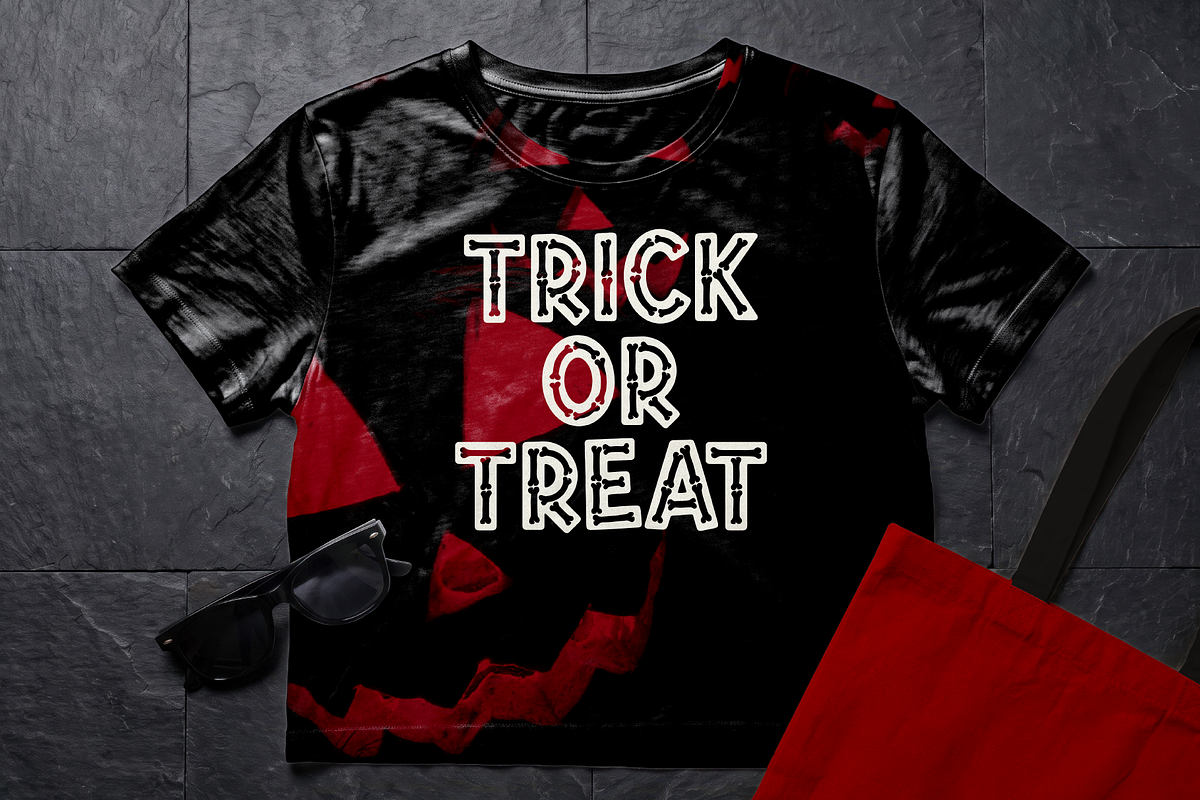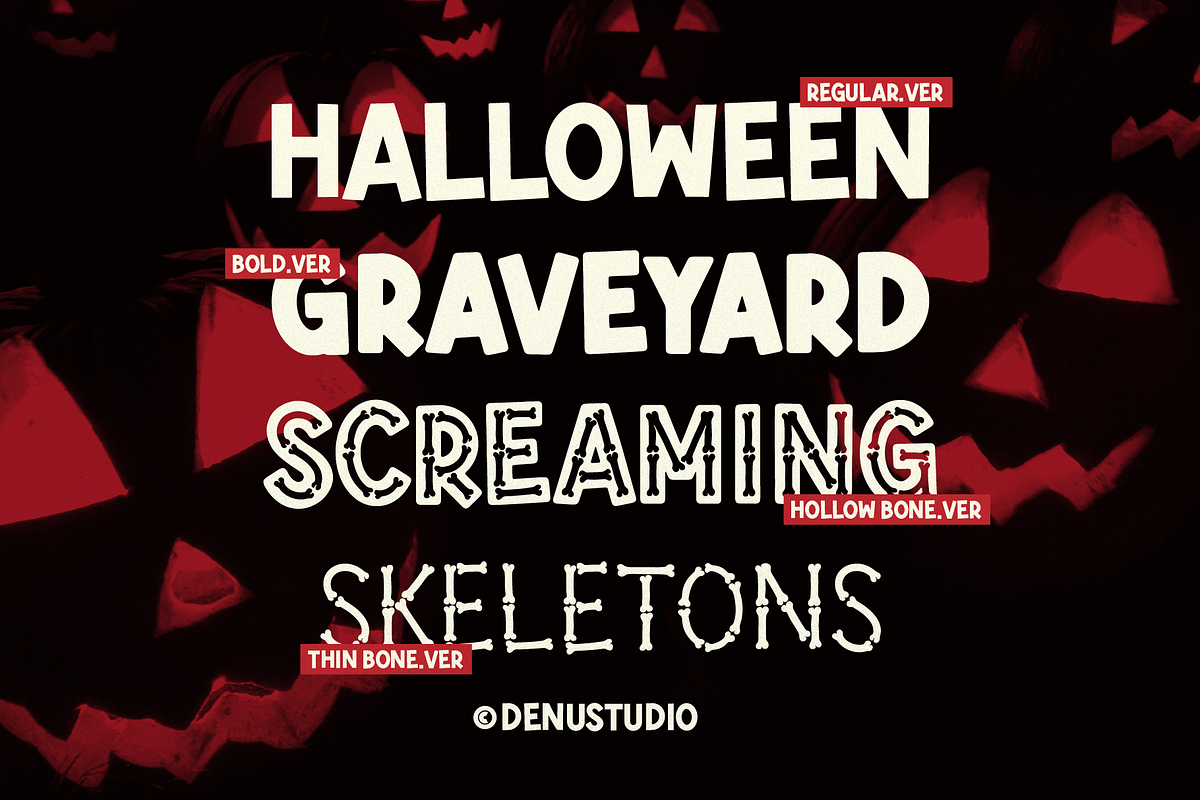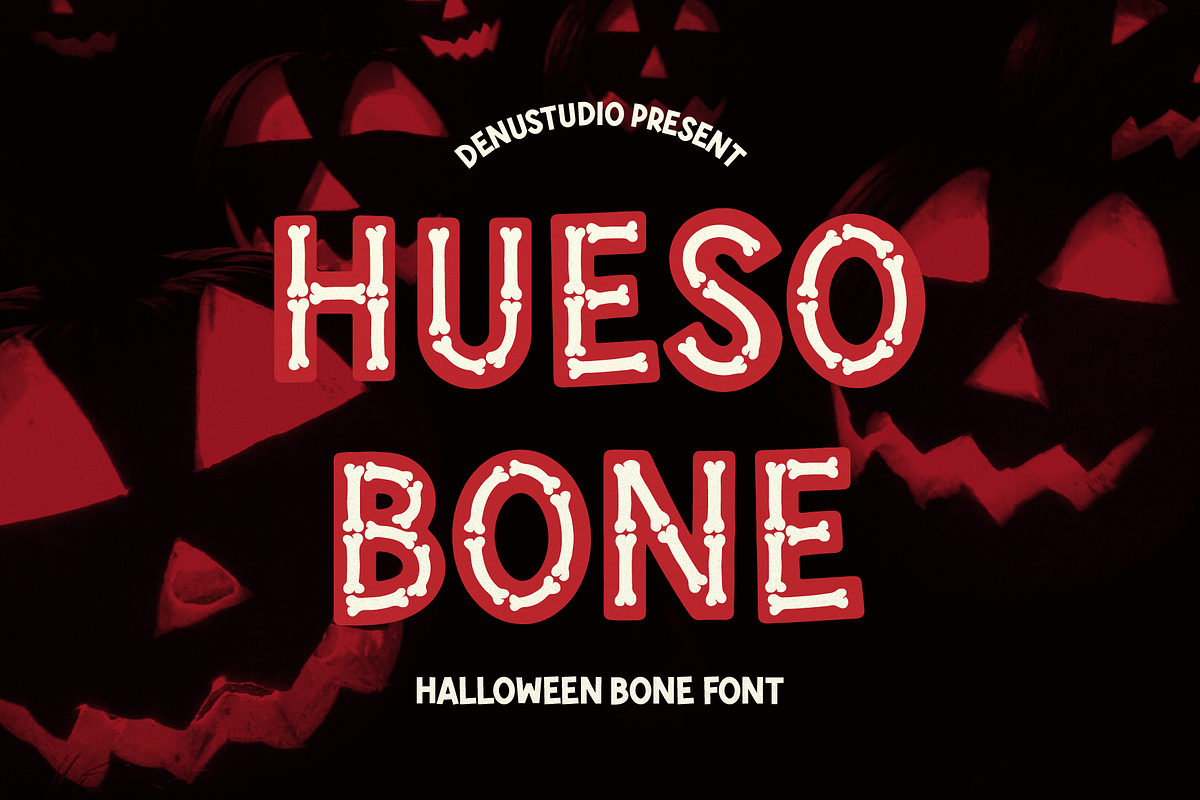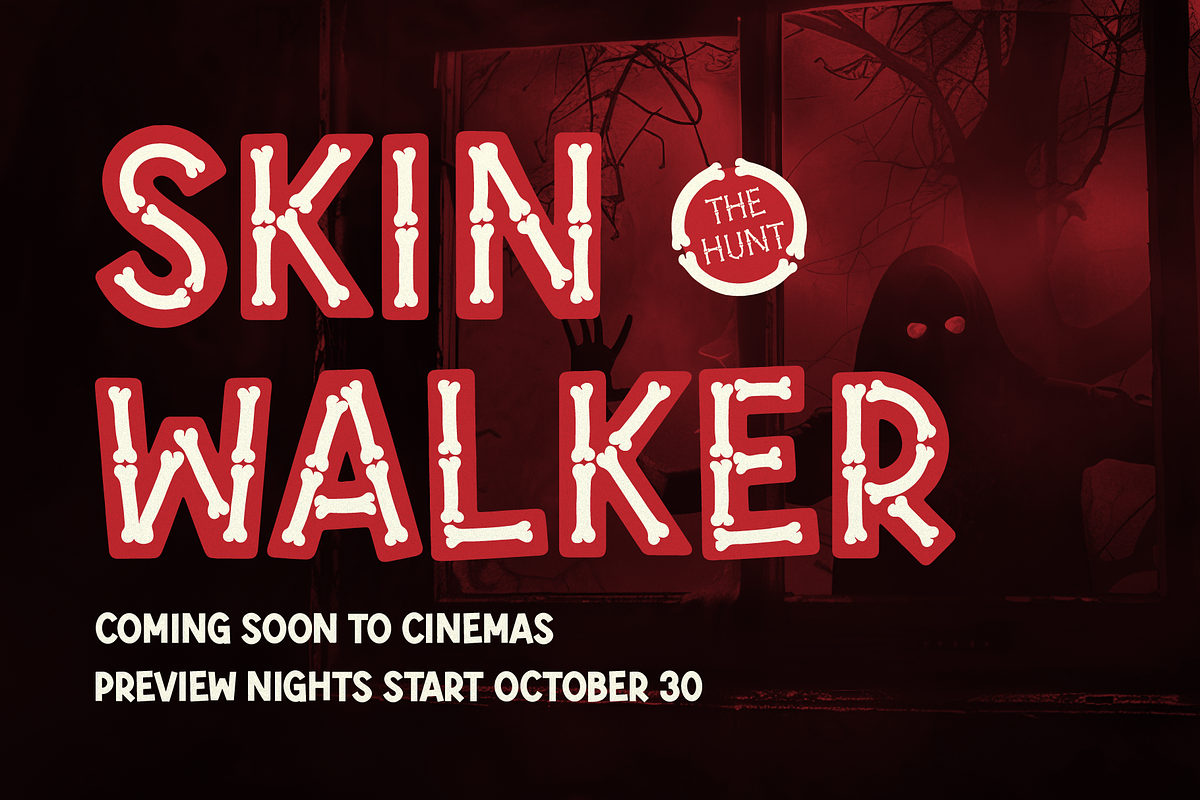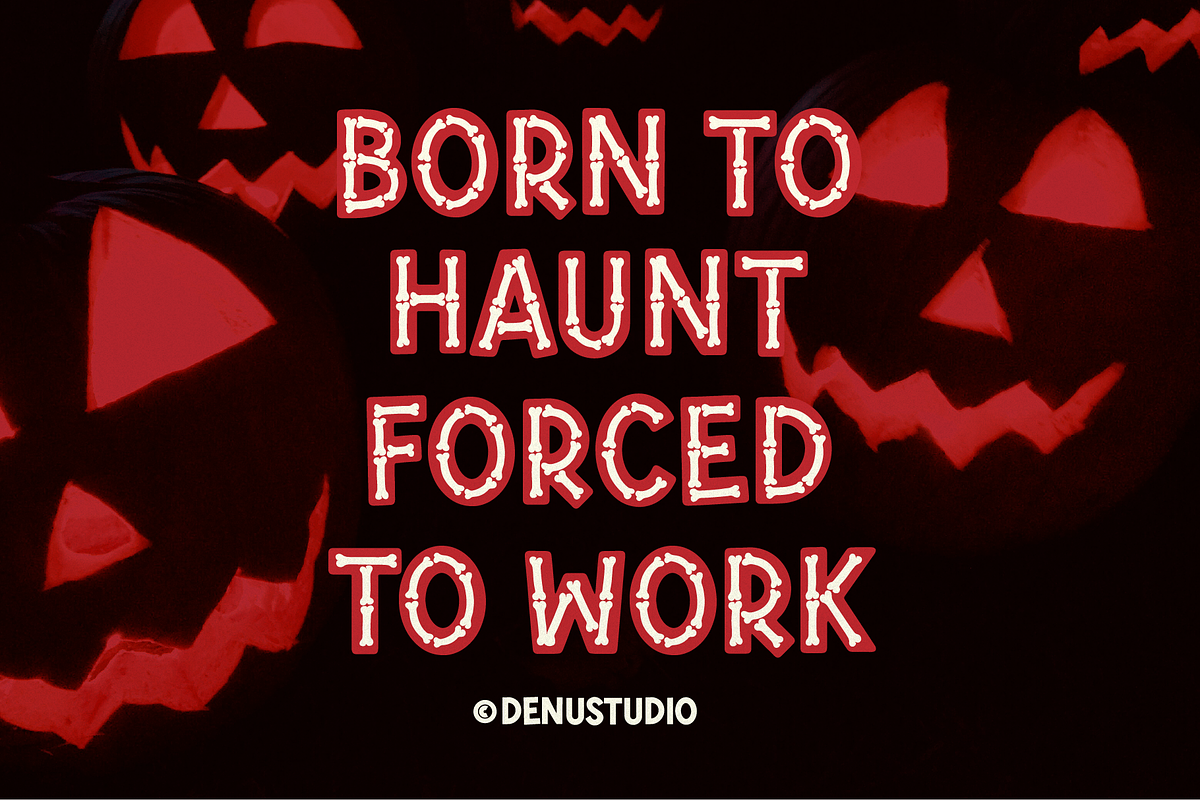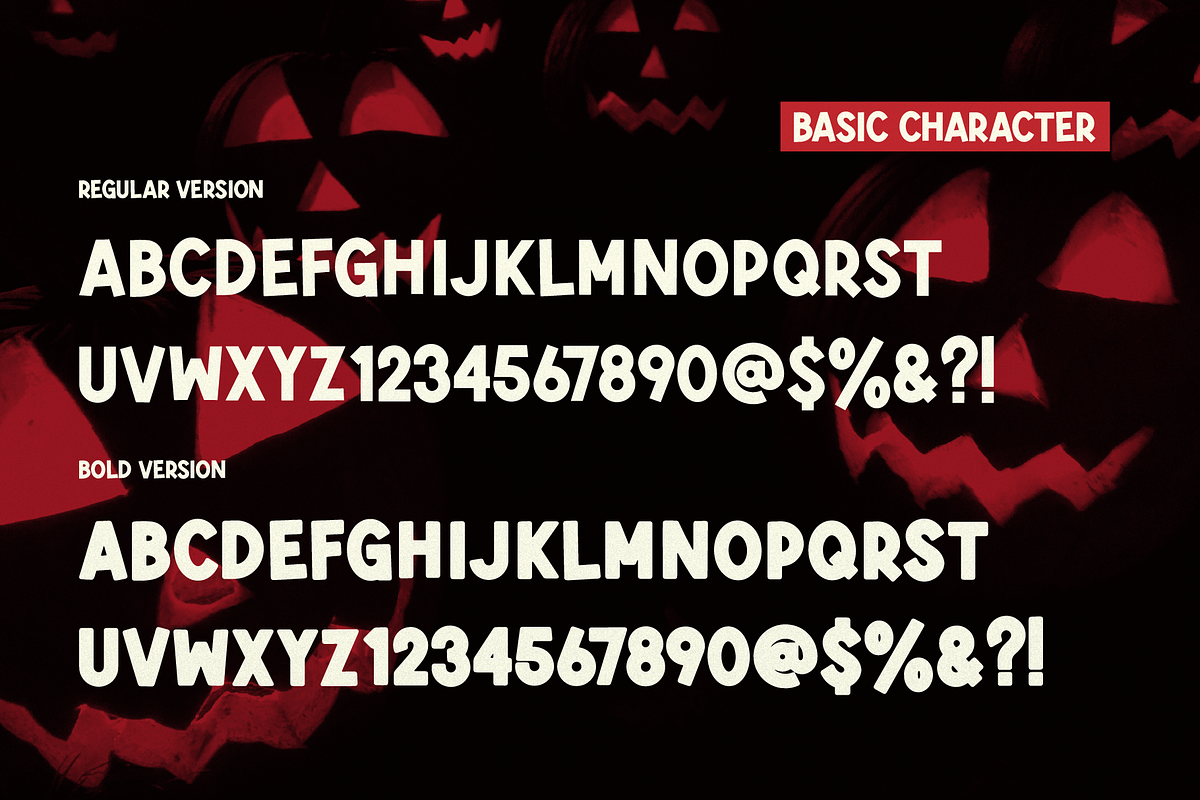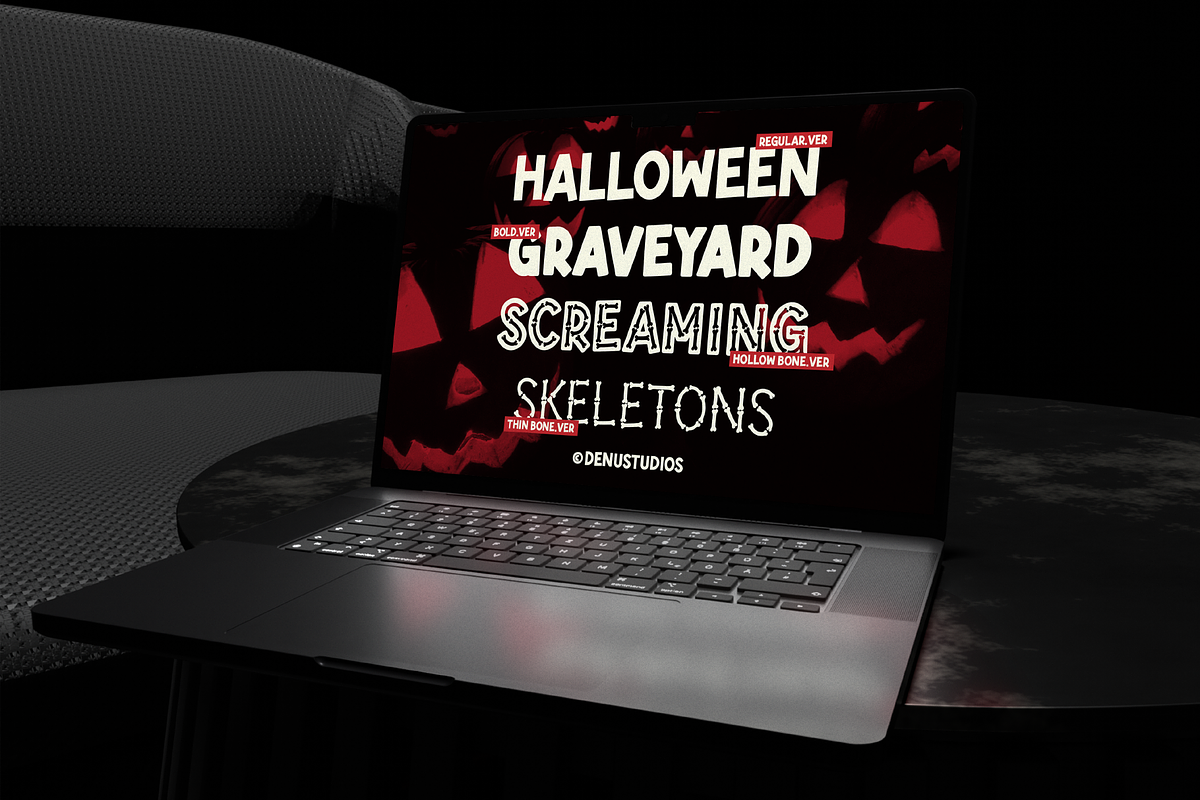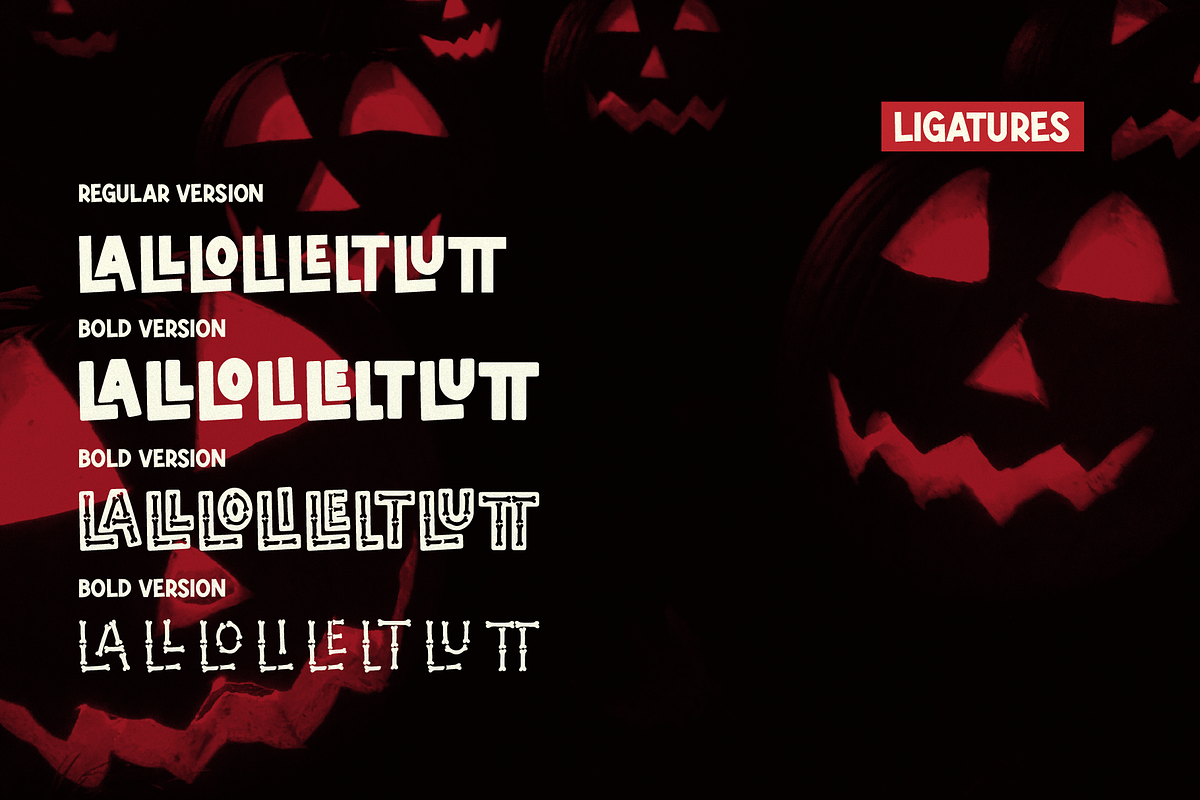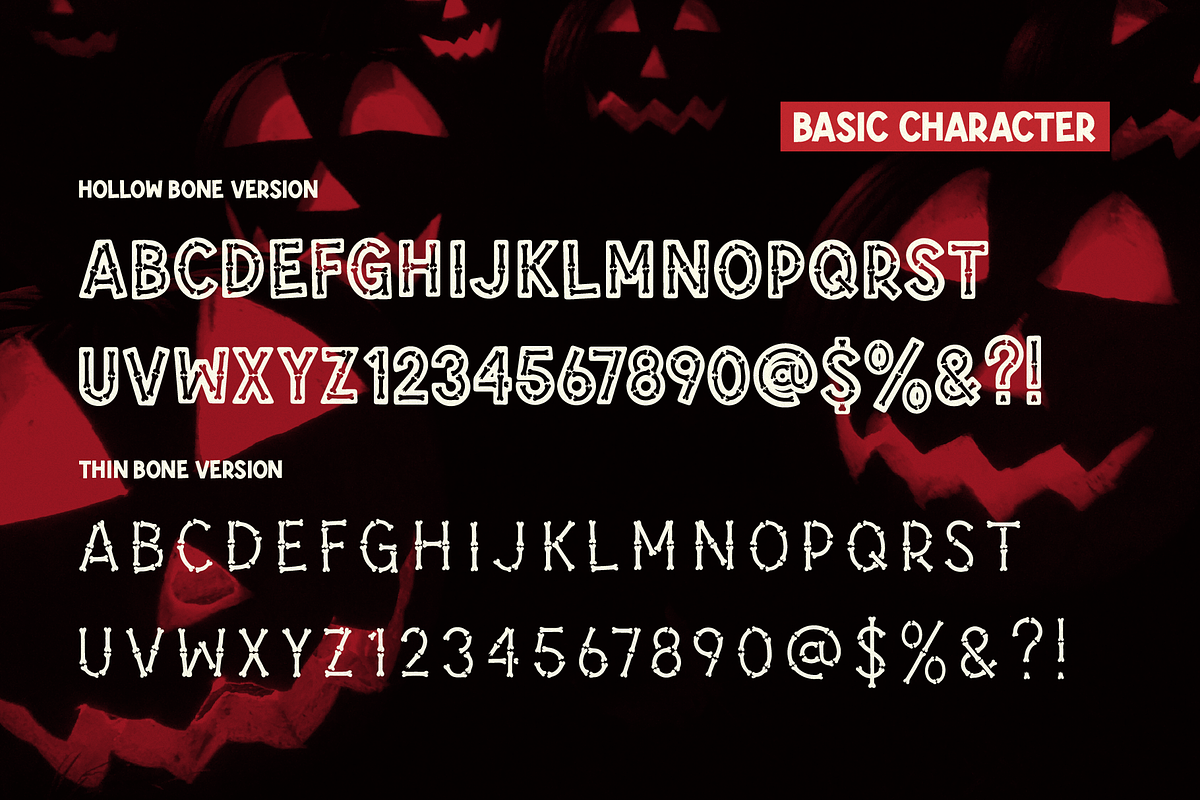
Hueso Bone | Halloween Bone Font
**Hueso Bone | Halloween Bone Font, **from Denustudios, suitable for any projects such as: logos, branding projects, homeware designs, product packaging, mugs, quotes, posters, shopping bags, t-shirts, book covers, name card, invitation cards, greeting cards, label, photography, watermark, special events, and all your other lovely projects that need a Halloween Font taste.